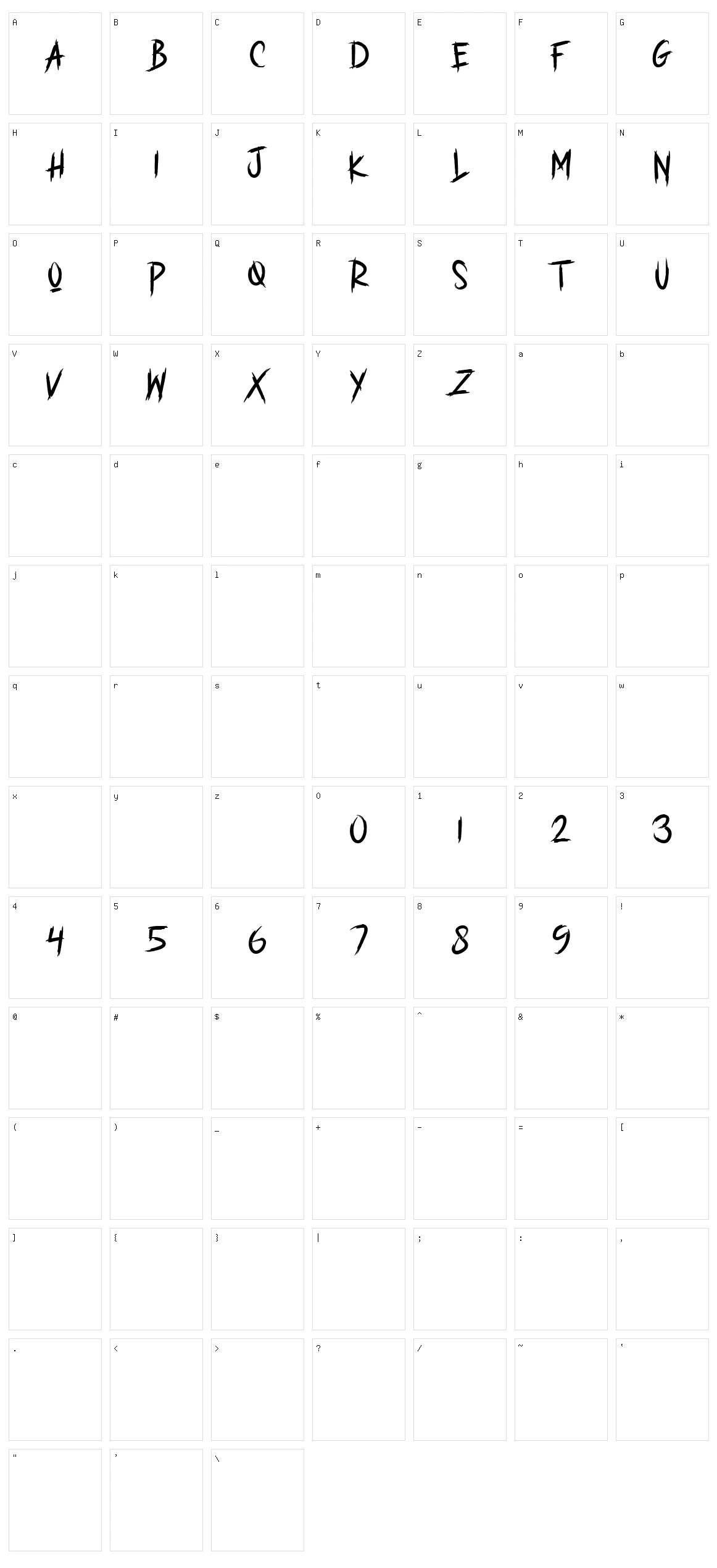
The free font Ghost Brush is carefully designed by Amin Studio, showcasing a thoughtful balance of creativity and usability and falls under the Horror font style. When you download the ZIP file, it contains only 48.18 KB of font files, making it lightweight and quick to download. Please review the license details below to understand permitted usage and distribution rights. If license information is not available, we recommend using this font for personal projects only or contacting the author directly for commercial usage permissions.